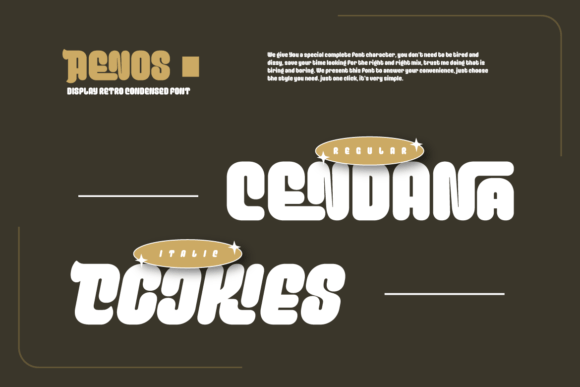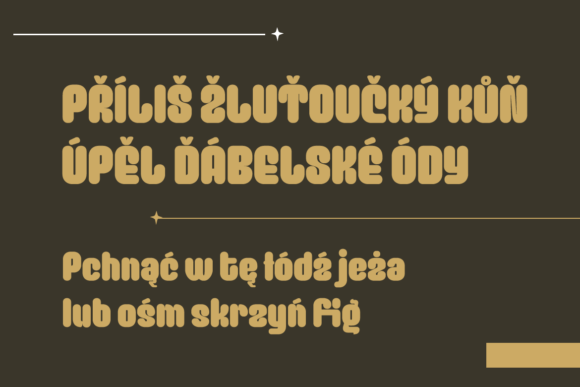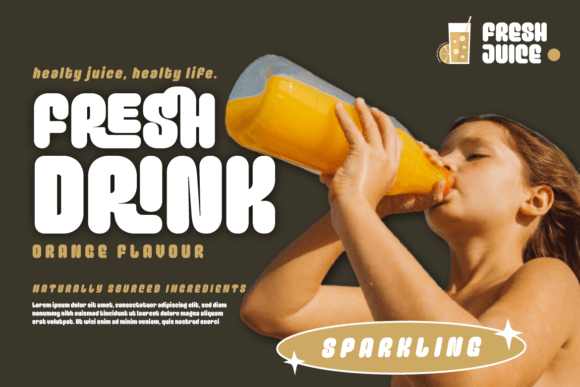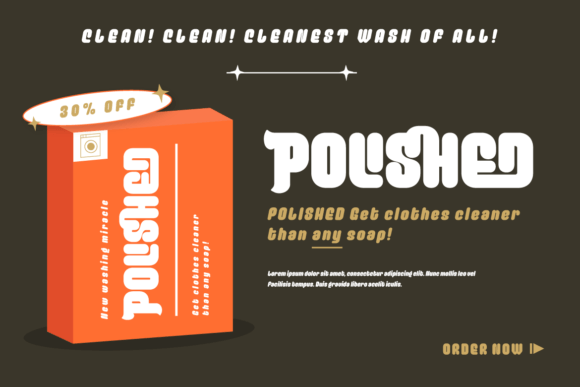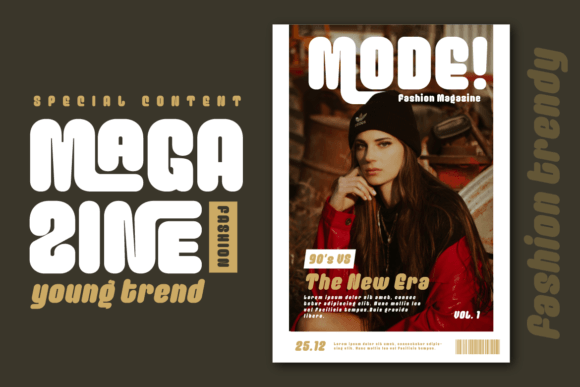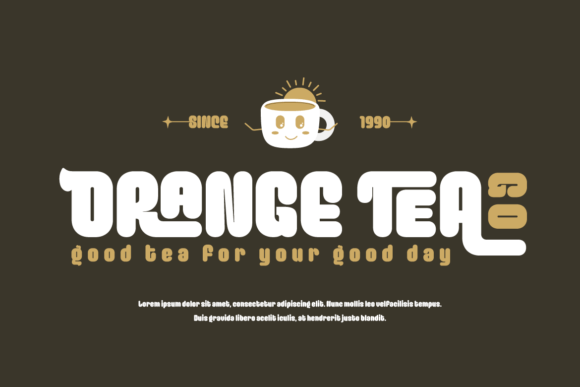
The Retro Charm of Aenos Font: A Designer’s Delight
First Impressions: What I Love About Aenos Font
Aenos is a retro condensed display font that’s ideal for creating eye-catching titles and headlines that appear strong, unique, and clean. Here are some features that I absolutely love:
• ✨ Bold and sturdy appearance: Aenos has a robust look that works well with medium or large font sizes while maintaining legibility.
• ✅ Optional ligatures and alternates: The font comes with a range of ligatures and stylistic alternates that allow you to add a personal touch to your designs.
• 🔥 Retro charm: Aenos has a distinct retro vibe that’s perfect for designs that require a touch of nostalgia.
Honest Review: The Not-So-Perfect Aenos Font
While Aenos is an excellent font, it’s not without its quirks. Here are a few things to keep in mind:
• 🤔 Limited use in small font sizes: Aenos is best used in medium to large font sizes. Using it in smaller sizes may compromise legibility.
The Story Behind Aenos Font
Aenos is a design project inspired by the nostalgia of retro typography. The font’s creator aimed to craft a unique and clean display font that would evoke a sense of nostalgia in designs. With its bold and sturdy appearance, Aenos is perfect for designers looking to add a touch of retro charm to their projects.
Q: What is Aenos font best used for?
Aenos is ideal for creating eye-catching titles and headlines that require a bold and sturdy appearance. It’s perfect for designs that need a touch of retro charm.
Q: Can I use Aenos font in small font sizes?
While Aenos can be used in small font sizes, it’s best suited for medium to large font sizes to maintain legibility.